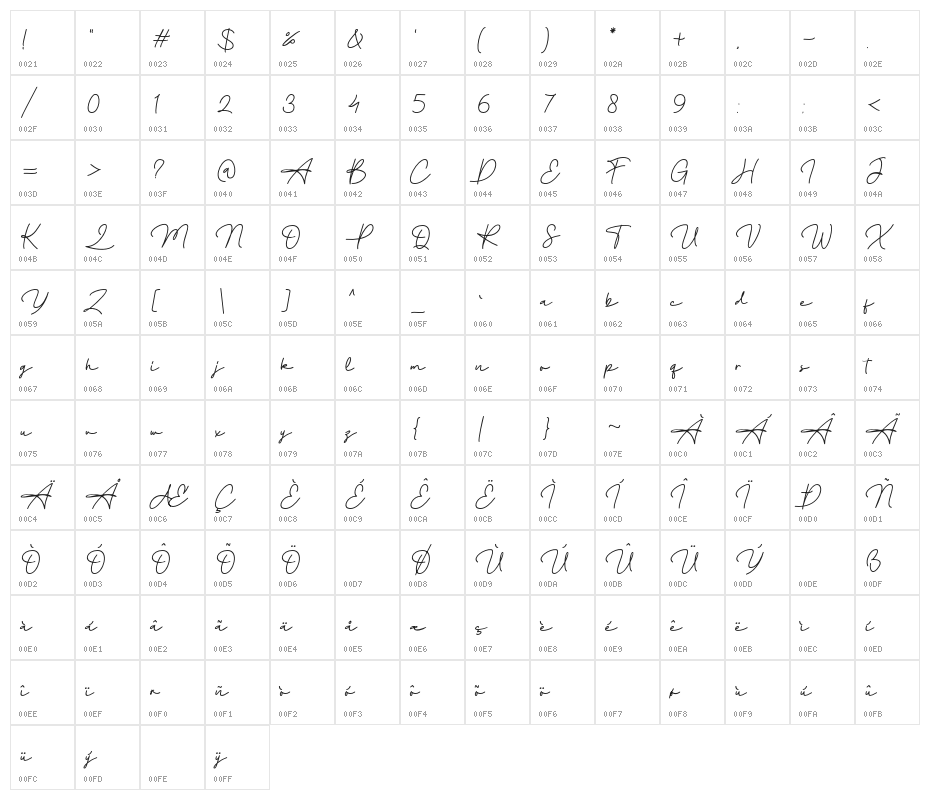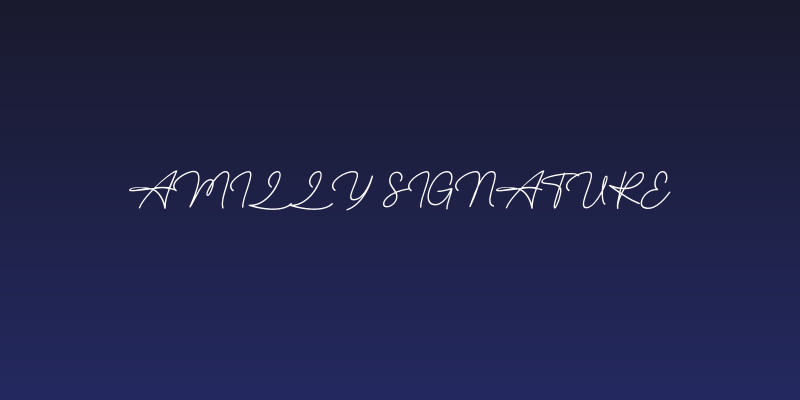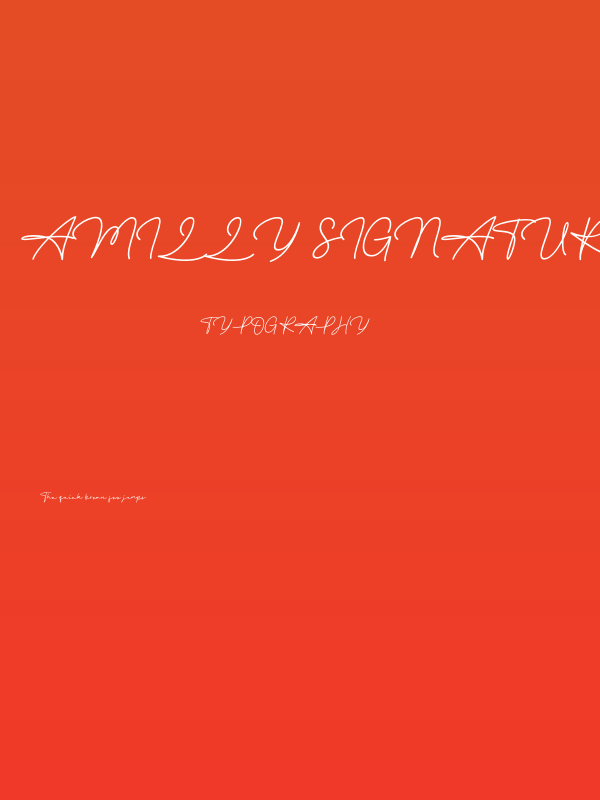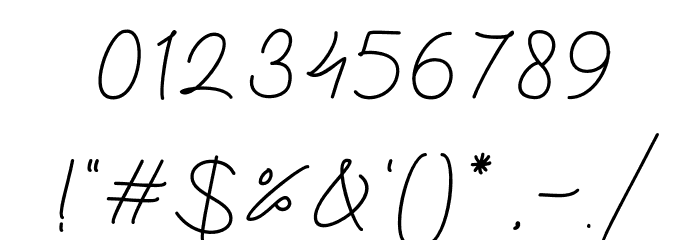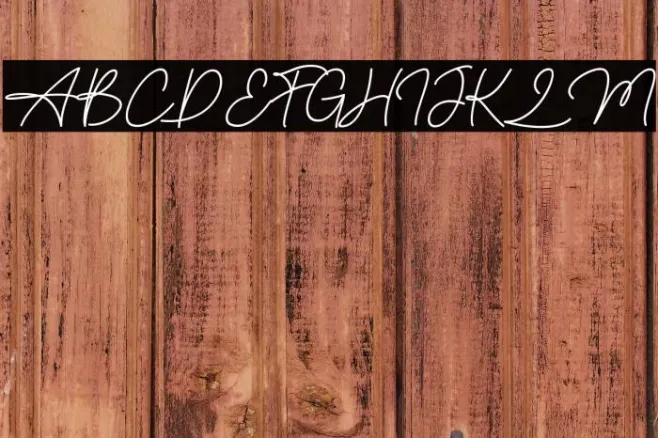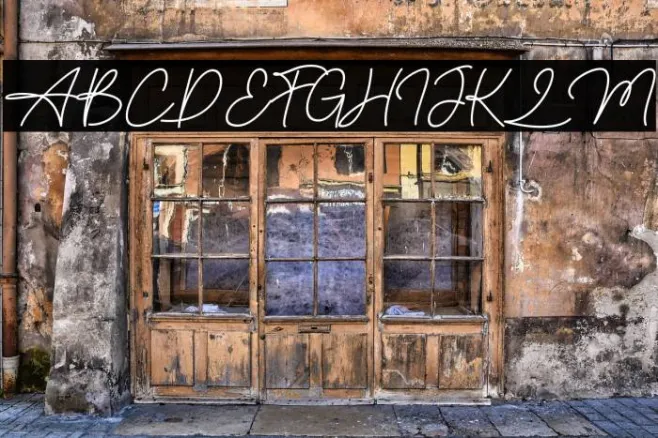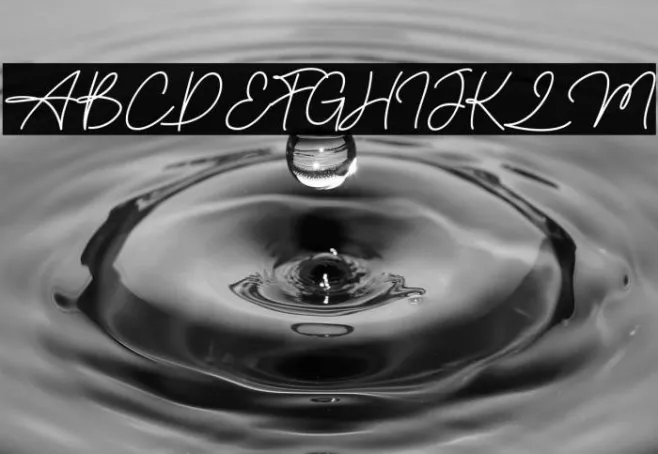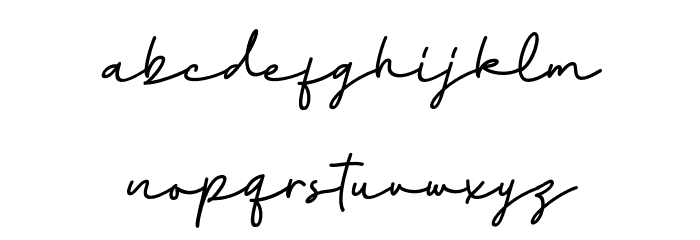
Amilly Signature Font
Amilly Signature Description
This font exudes elegance and sophistication with its fluid, cursive style. The letters are gracefully connected, mimicking the flow of a handwritten signature. The uppercase characters are slightly more elaborate, with sweeping lines and gentle curves, while the lowercase letters maintain a consistent, smooth appearance. The numerals and special characters are designed to complement the overall aesthetic, maintaining the same flowing style. This font is perfect for adding a personal touch to any project, conveying a sense of luxury and refinement.
| Use Case | Logos, Invitations, Personal branding |
| Proposed Projects | Ideal for wedding invitations, personal branding, logos, and elegant stationery. |